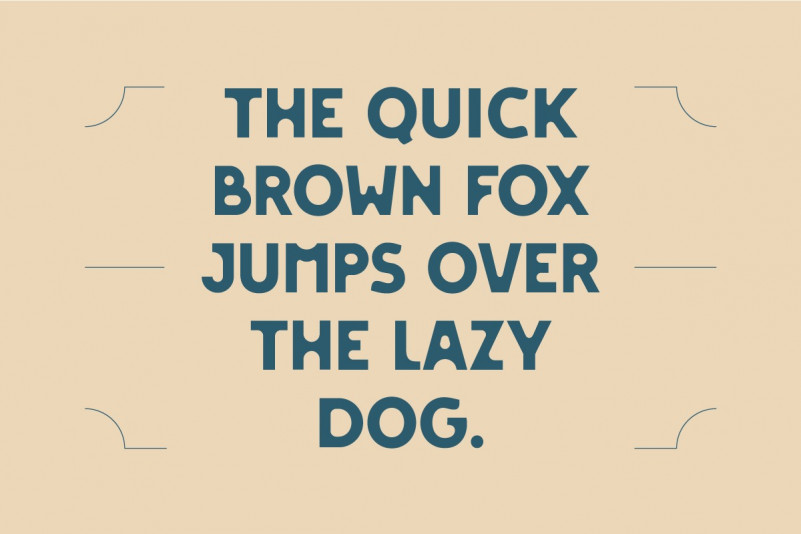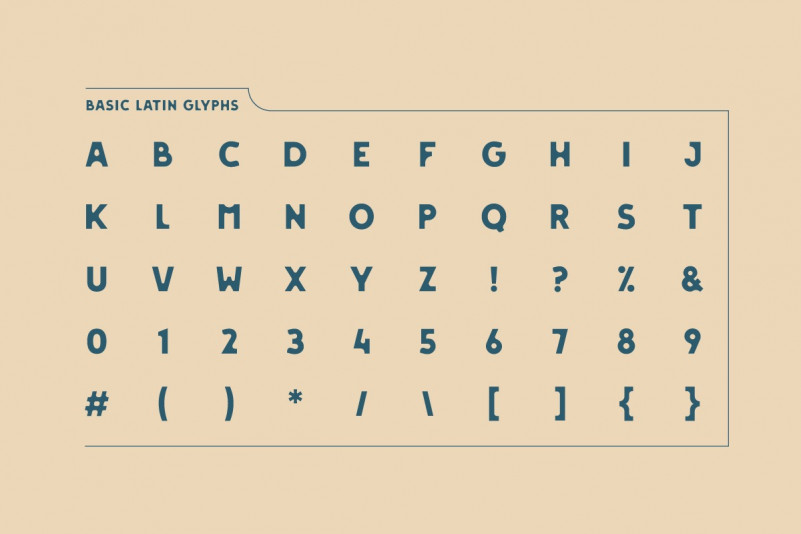
Hello friend. Forta Display Font is perfectly represents vintage aesthetics sans serif swashes typeface. This project inspired by beautiful lettering in old label. It’s a headline font designed by Andrzej Wróż, Graphic Designer and Art Director based in Poznań, Poland. It is ‘all caps’ font, perfect for headlines, short sentences, logos, posters etc. It combines sharp edges and soft curves into unique, visually appealing shapes. FORTA contains over 190 glyphs and supports over 20 languages.